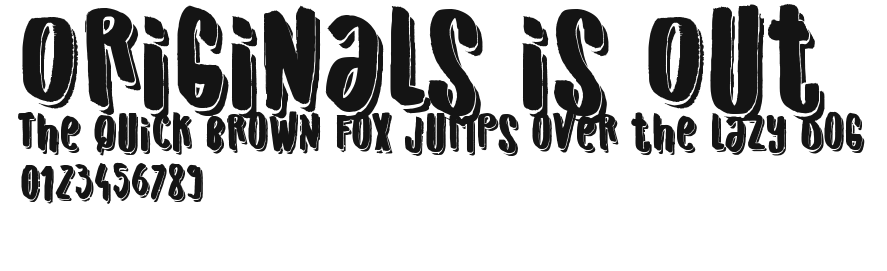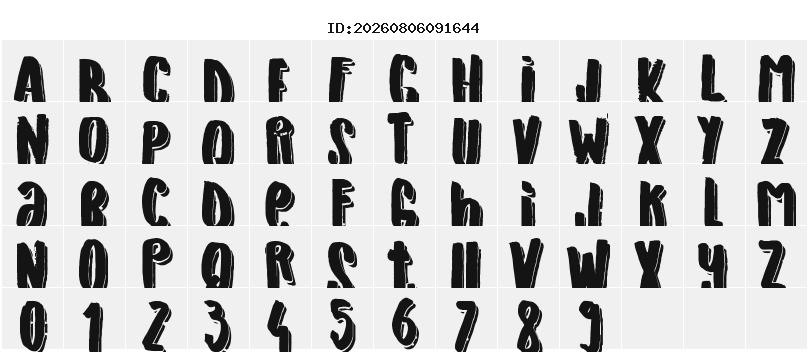
• Font Name: Originals is Out
• Full Font Name: Originals is Out
• Designer: Leonard Posavec
• Description: This font was created using Scanahand from High-Logic.com
Originals is Out.ttf is a modern, elegant sans-serif font designed for ultimate readability and visual harmony. Perfect for branding, headlines, web design, and print materials.